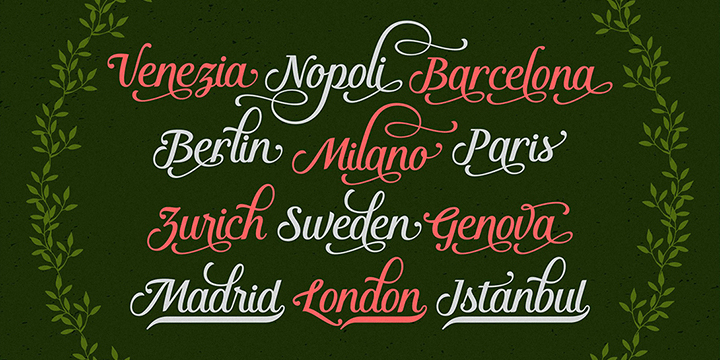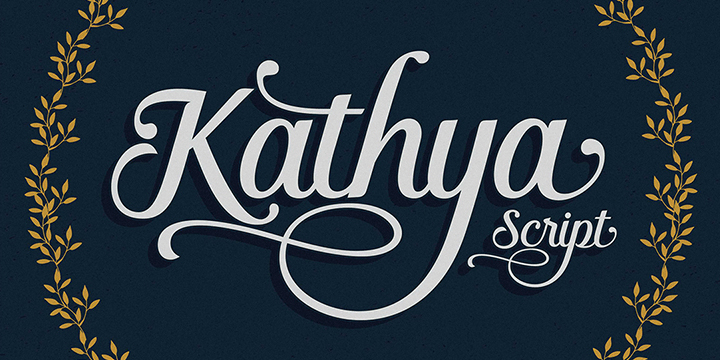
Kathya Script
About Kathya Script
Kathya Script is a contemporary calligraphic typeface, a blend of retro script and modern sans serif with a classic and elegant touch. With almost 430 glyphs and 176 alternate characters, multiple language support, the choice of useful ligatures, swash…